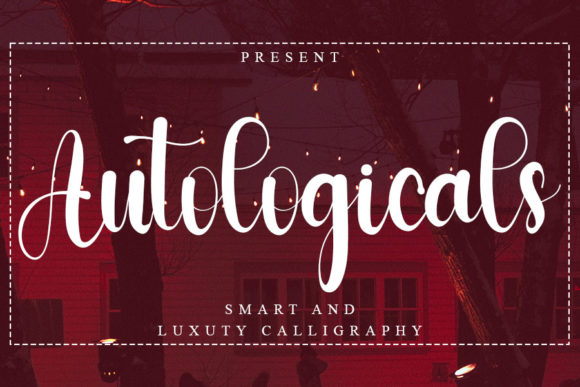
Prepare to fall in love with Autologicals, the script font that perfectly captures the essence of romance. Its effortless flow and charming imperfections evoke a sense of nostalgia, making it the ideal choice for love letters, wedding invitations, and any project where a touch of sentimentality is desired.
Born from the creative mind of K_IN Studio, Autologicals is a feast for the eyes. Its unique style combines a touch of whimsy with a dash of quirkiness. Each letter dances across the page with a joyful spirit, adding a touch of playfulness to your designs.
Whether you're a seasoned designer or just starting out, Autologicals is the font that will bring your creative vision to life. Its versatility lends itself effortlessly to a wide range of projects, from logos and branding to social media graphics and website design.
Step into the world of Autologicals and let your imagination soar. Its captivating curves and elegant flourishes will transform your words into works of art, leaving a lasting impression on your audience.